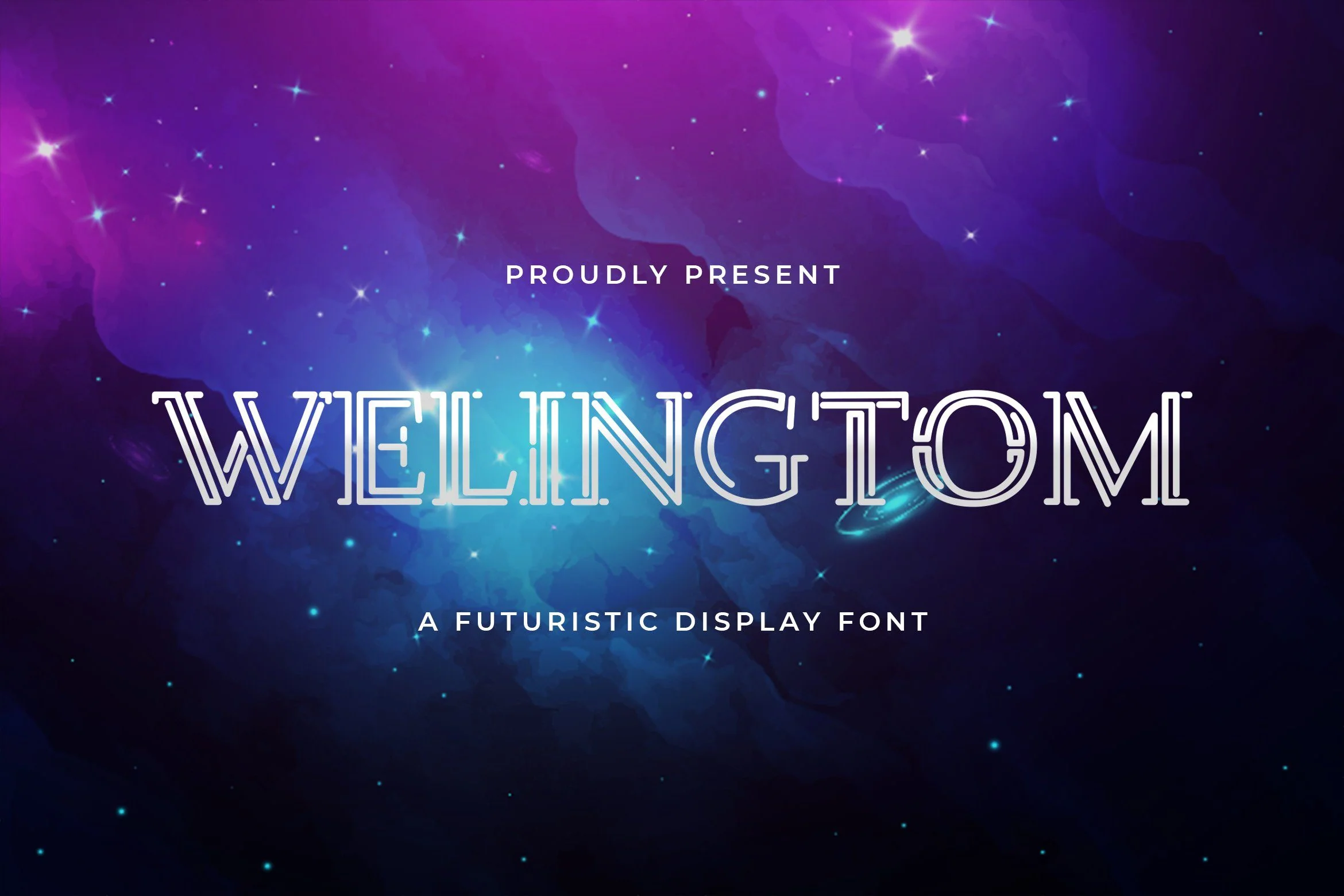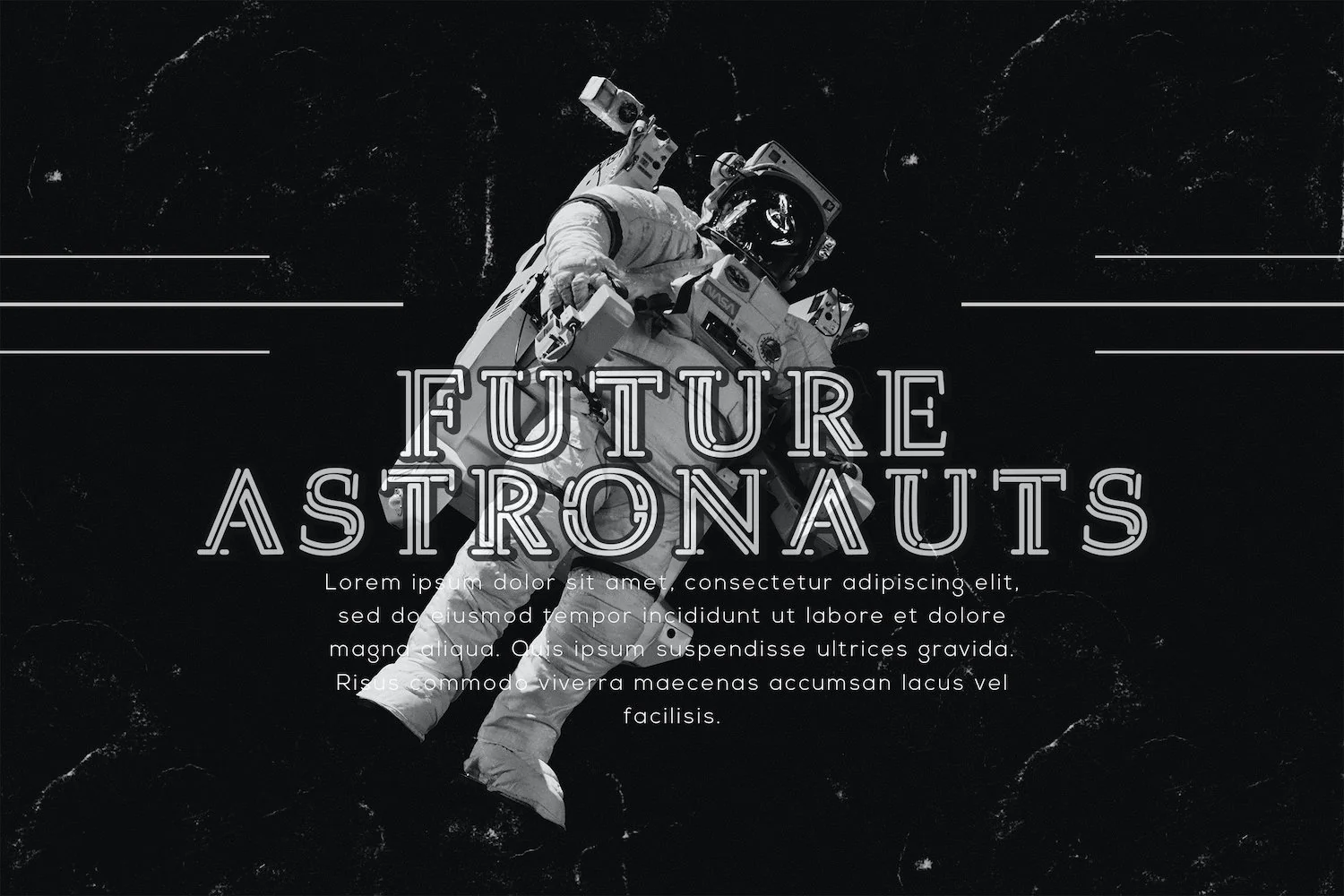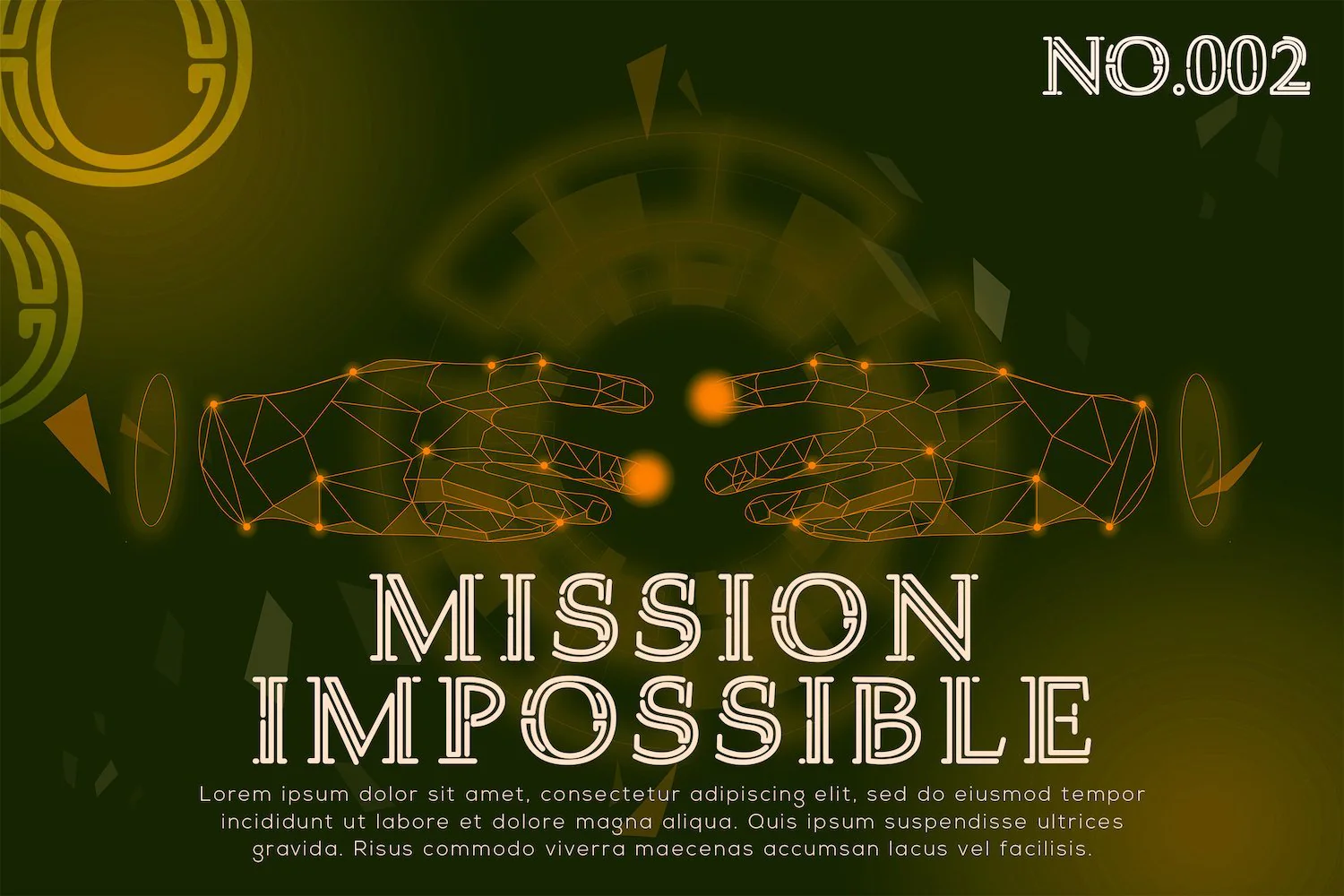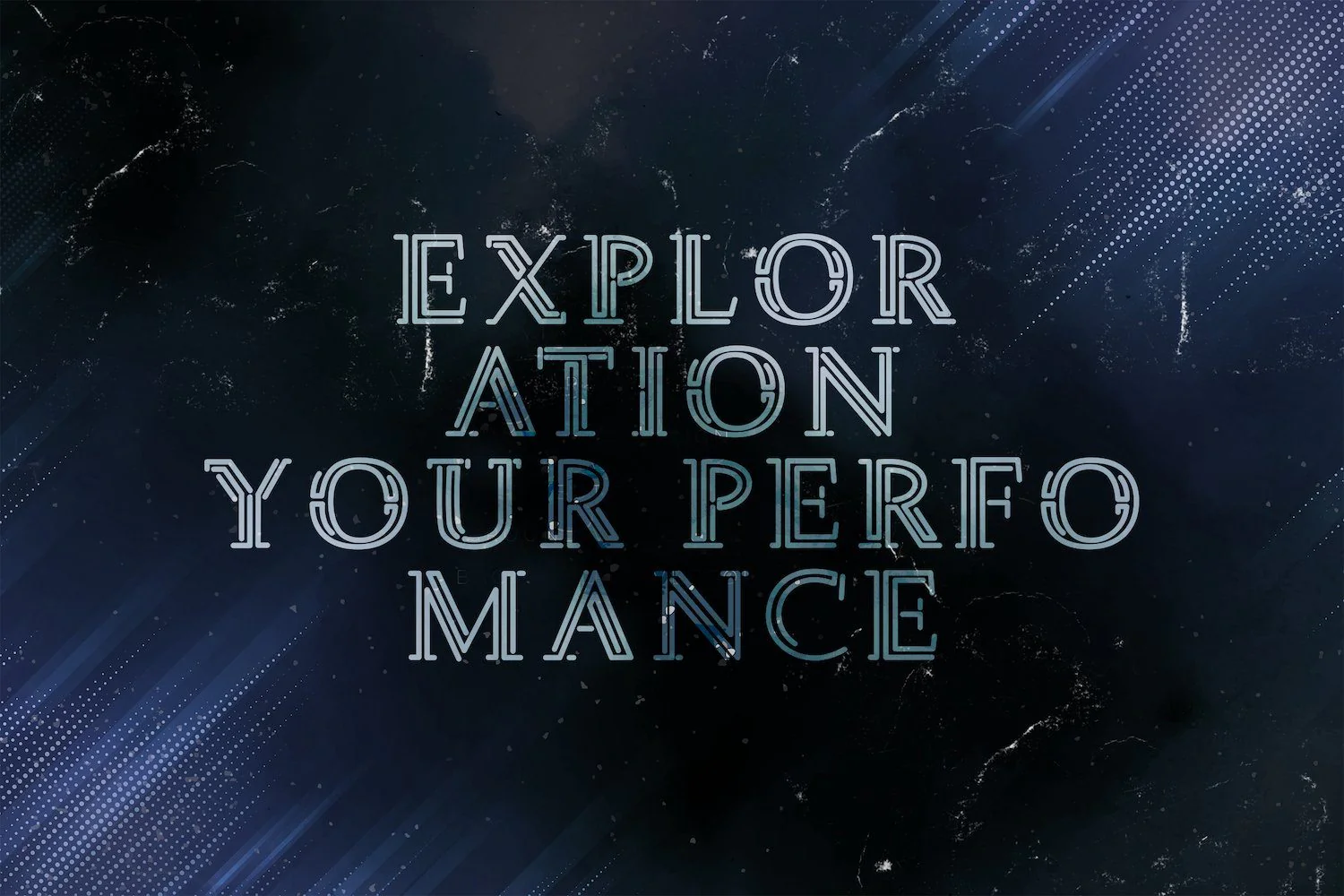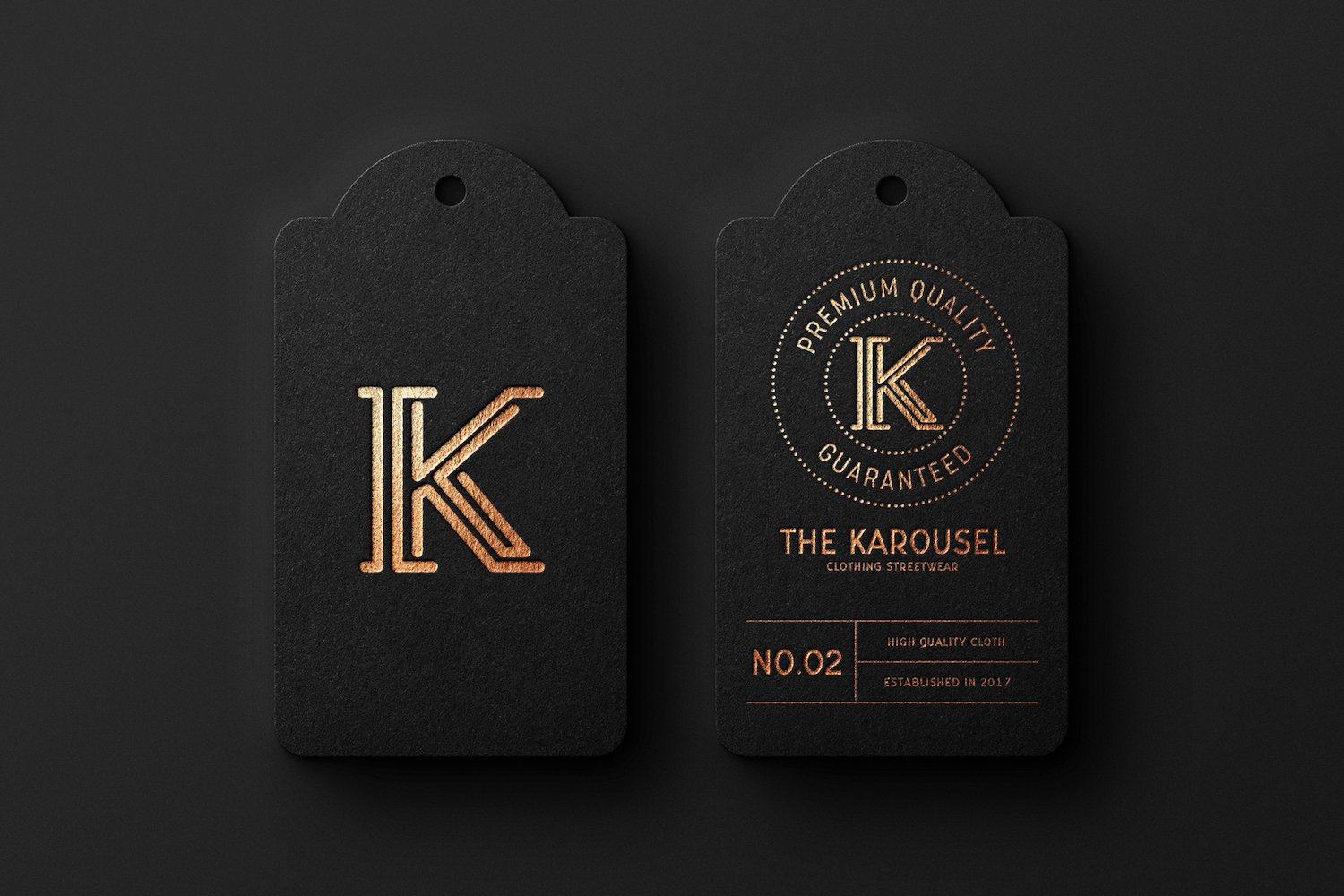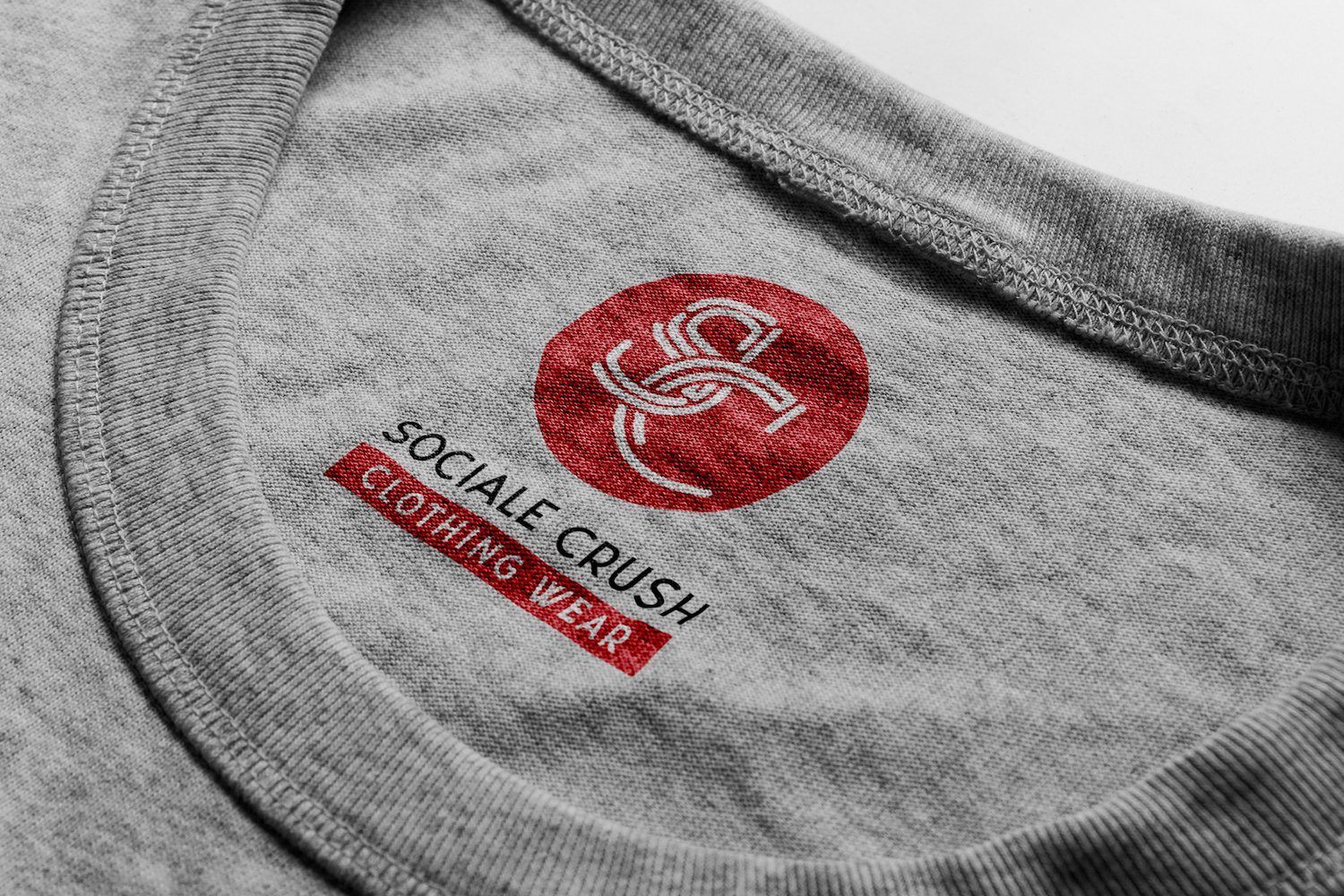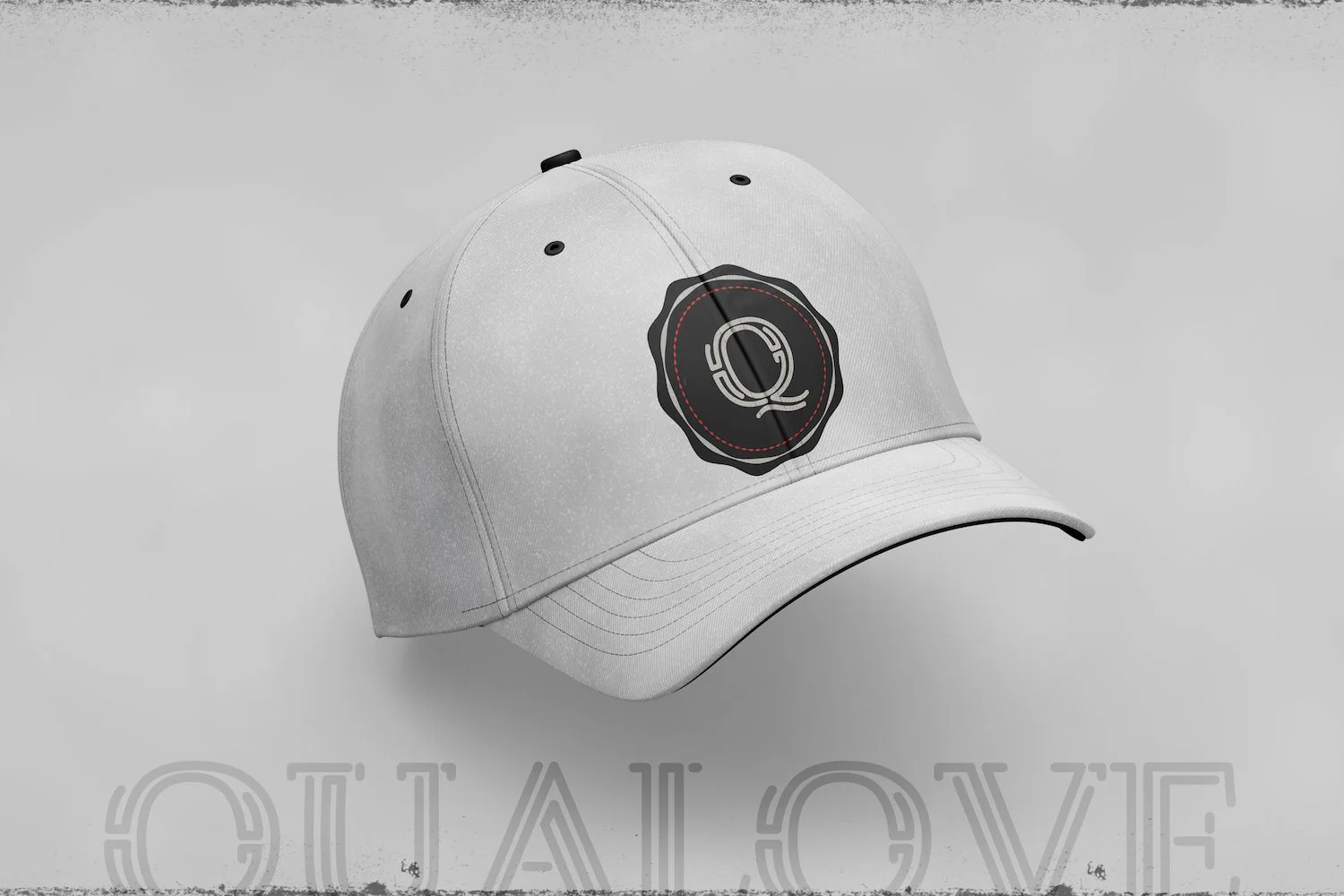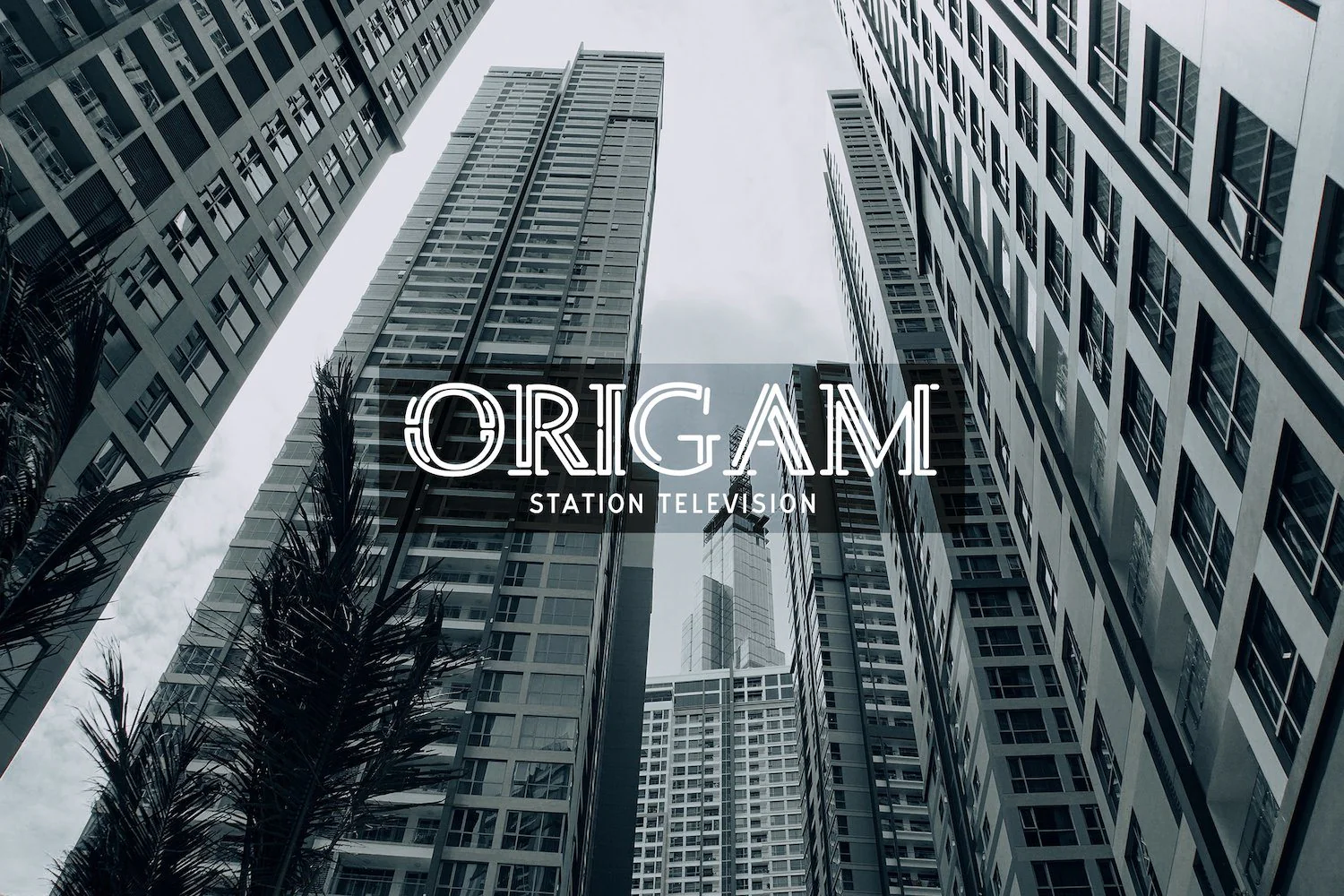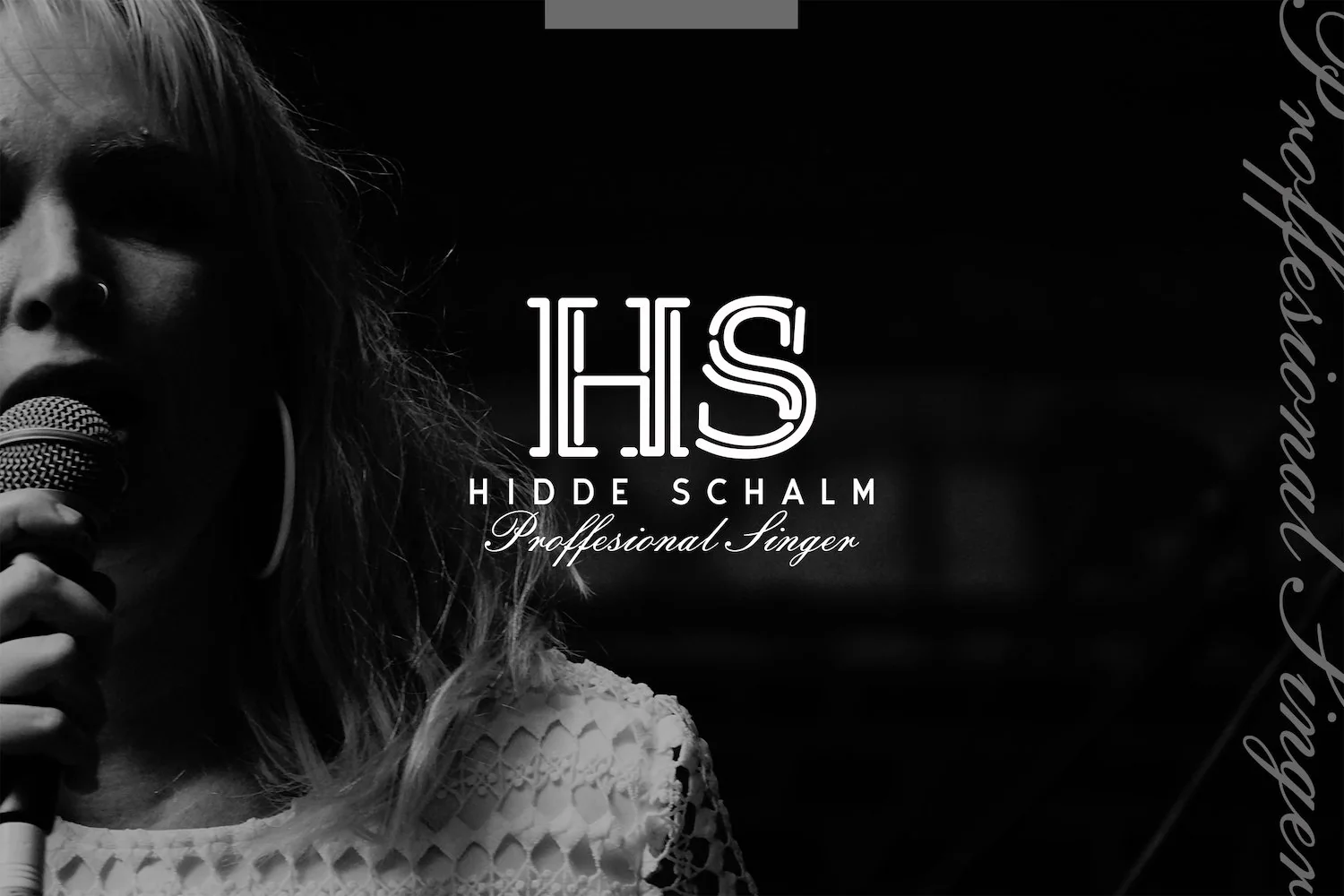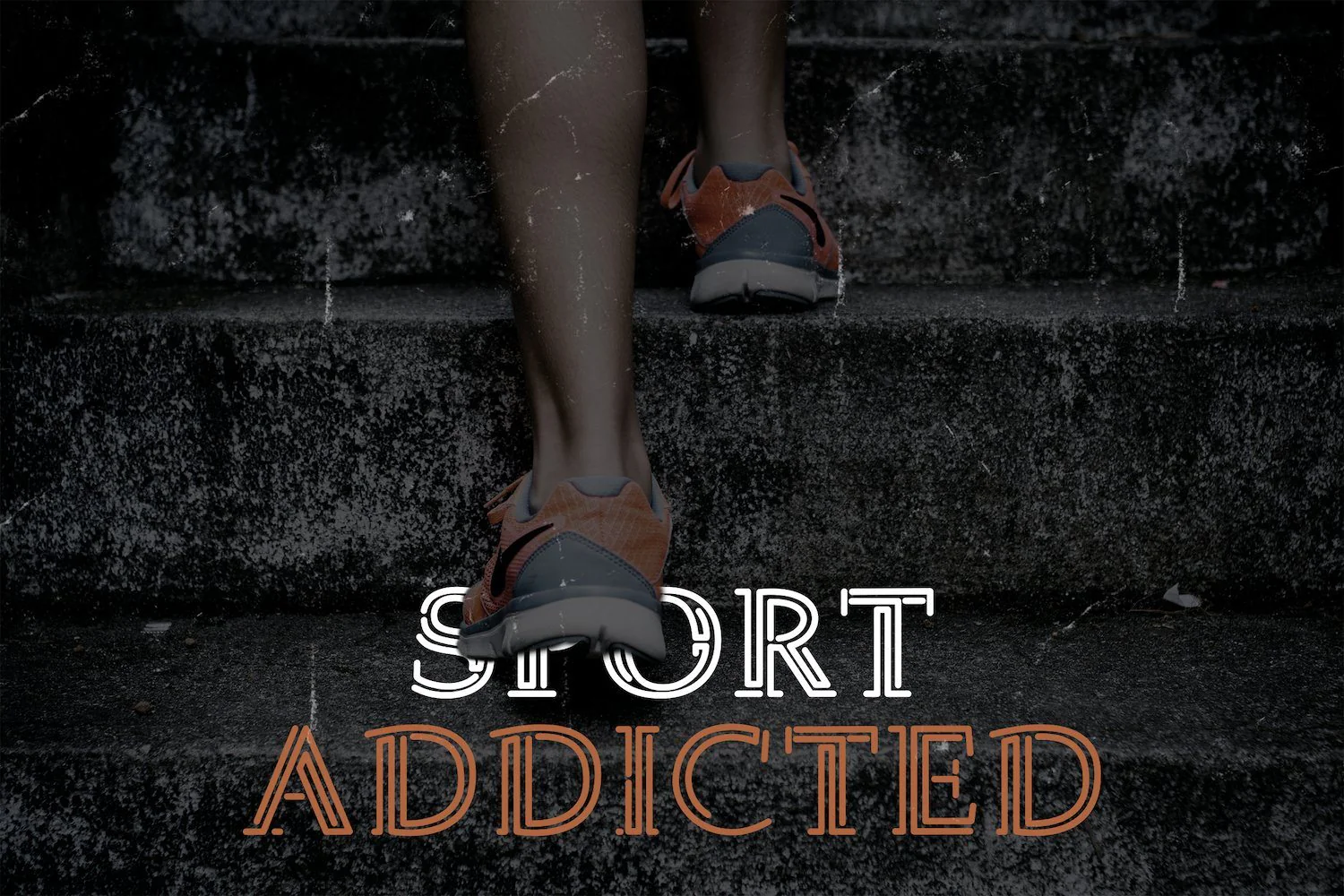
Welingtom - Futuristic Display Font
Introducing Welingtom - Futuristic Display Font
Welingtom is an authentic and futuristic display font. Masterfully designed to become a true favorite, this font has the potential to bring each of your creative ideas to the highest level.